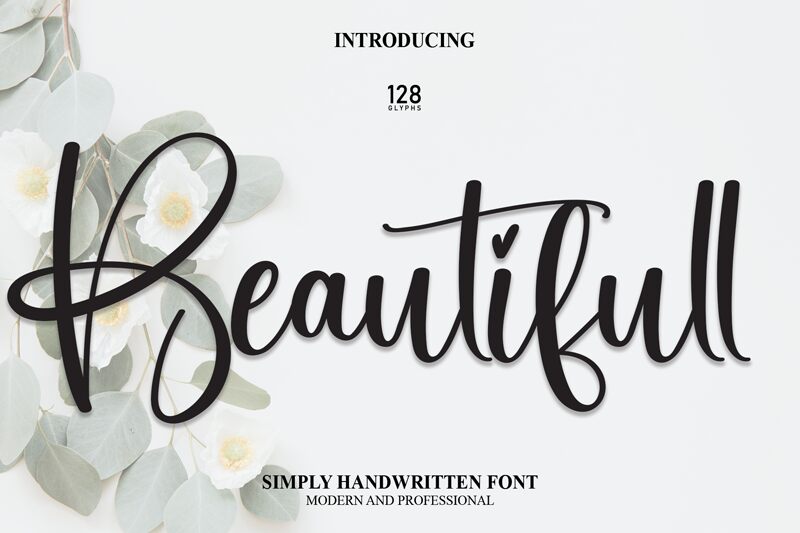
Beautifull
Beautifull, designed by Scratchones, captures the essence of personal touch in its semi-light handwritten style. This font's fluidity and elegance are reminiscent of classic calligraphy, yet it carries a modern twist that makes it versatile for contemporary design work. Each stroke and curve is crafted to convey emotion and character, ensuring that your message is not just read but felt.
With its aesthetic appeal, Beautifull stands out as a choice typeface for projects requiring a blend of sophistication and warmth. Whether it's wedding invitations, branding materials, or book covers, this font adds a bespoke charm that can elevate any creative endeavor. Its semi-light weight provides a delicate balance-robust enough to demand attention while remaining gentle on the eyes.
Embrace the allure of Beautifull for your next project and let its distinct style speak volumes about your commitment to quality and beauty in design.
With its aesthetic appeal, Beautifull stands out as a choice typeface for projects requiring a blend of sophistication and warmth. Whether it's wedding invitations, branding materials, or book covers, this font adds a bespoke charm that can elevate any creative endeavor. Its semi-light weight provides a delicate balance-robust enough to demand attention while remaining gentle on the eyes.
Embrace the allure of Beautifull for your next project and let its distinct style speak volumes about your commitment to quality and beauty in design.